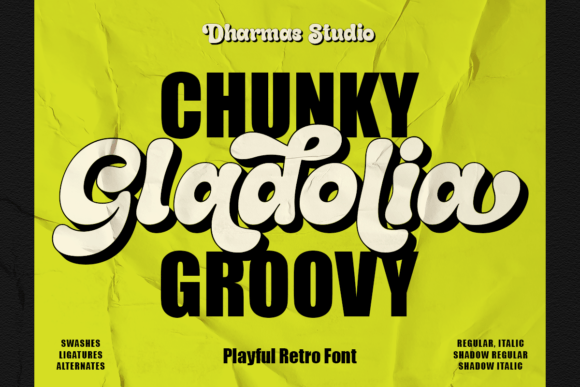
Introducing Gladolia Font: Your Express Lane to Design Distinction
Kickstart your design journey with Gladolia Font, a remarkable display typeface that exudes a captivating fusion of classic and contemporary styles. Its meticulously crafted characters, brimming with bold and chunky aesthetics, will inject a unique retro charm into your creative projects.
Gladolia Font Family: A Trio of Typographic Treasures
Immerse yourself in the creative versatility of the Gladolia Font Family. With two distinct styles Regular and Oblique and an additional Extruded variant for each, you hold the keys to unlocking a world of design possibilities. Effortlessly craft eye-catching designs that demand attention, without breaking a sweat.
Unleash the Power of Gladolia: Your Visual Storytelling Companion
Gladolia Font is the ultimate visual storyteller, ready to bring your creative visions to life. Its striking retro vibes make it an ideal choice for magazine covers, brochures, logos, and headlines that demand attention. Elevate your designs with Gladolia's dynamic and authoritative presence, making every project a testament to your creative brilliance.
Beyond Aesthetics: The Practicality of Gladolia
Gladolia Font is not just a visual treat; it's also a practical choice for designers seeking efficiency. Its PUA encoding ensures effortless access to the entire glyph and ligature library, saving you time and hassle. Unleash your creativity without technical limitations, knowing that Gladolia has your back.